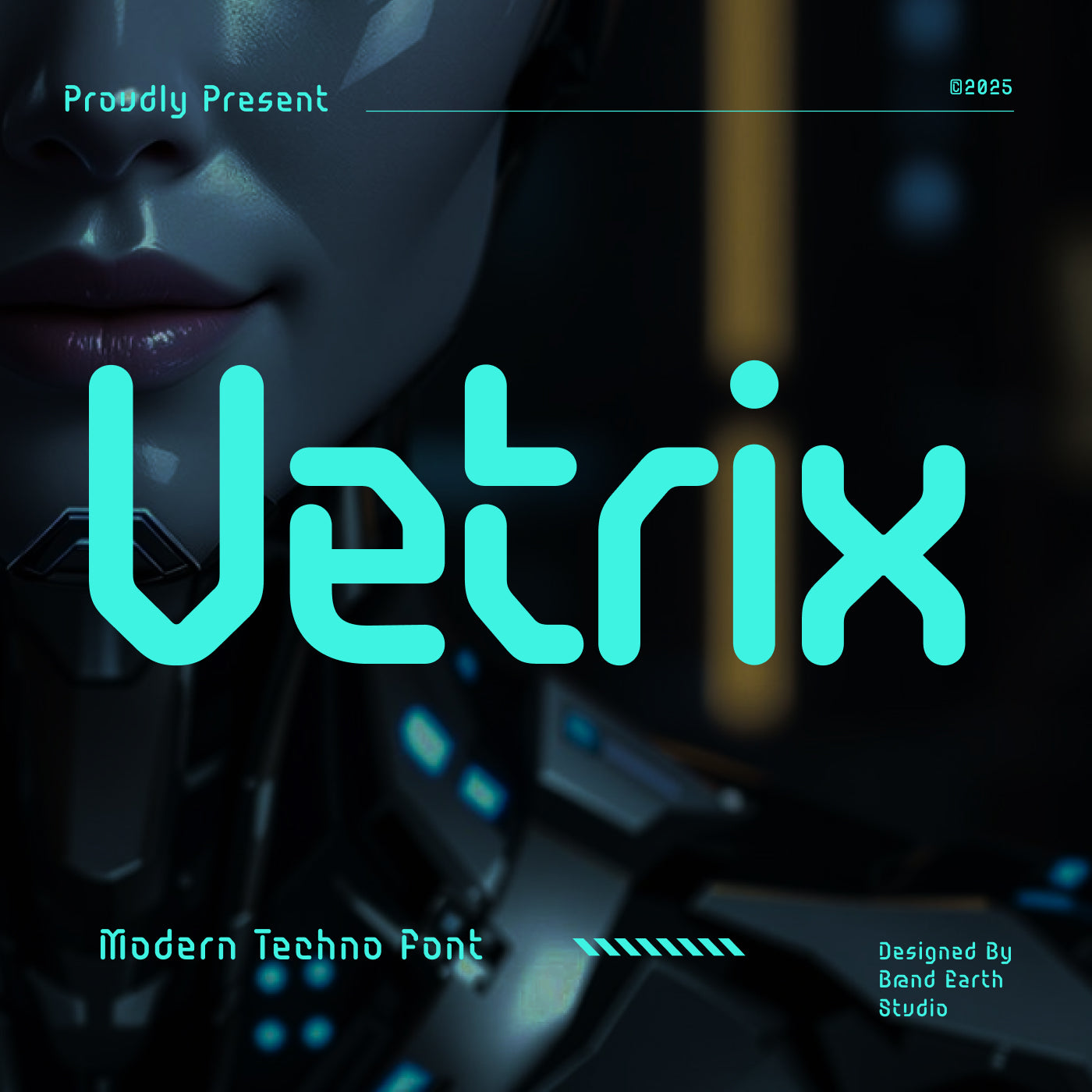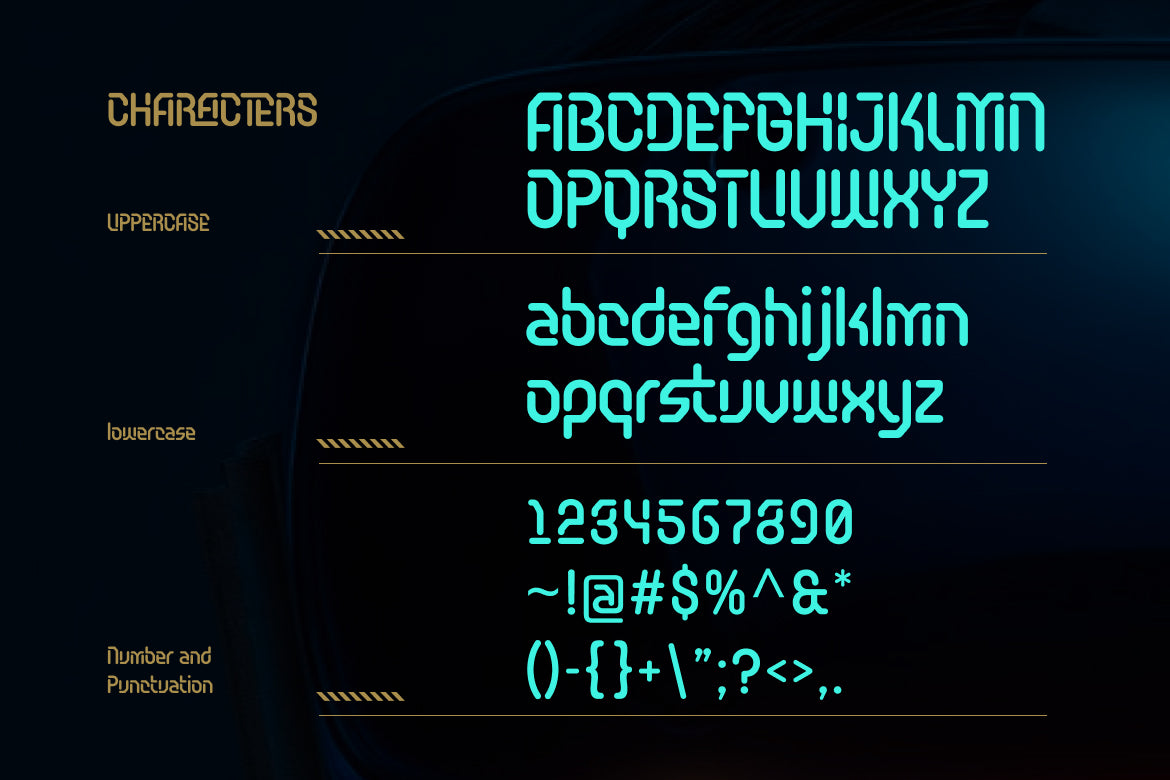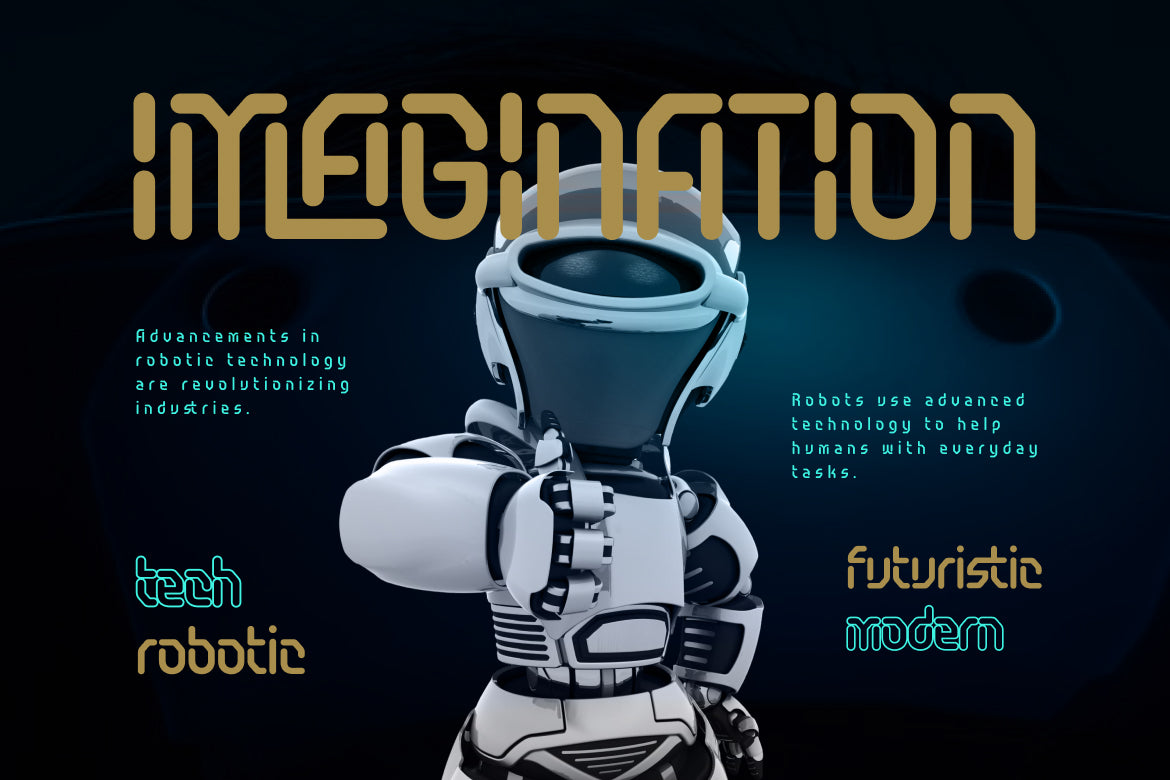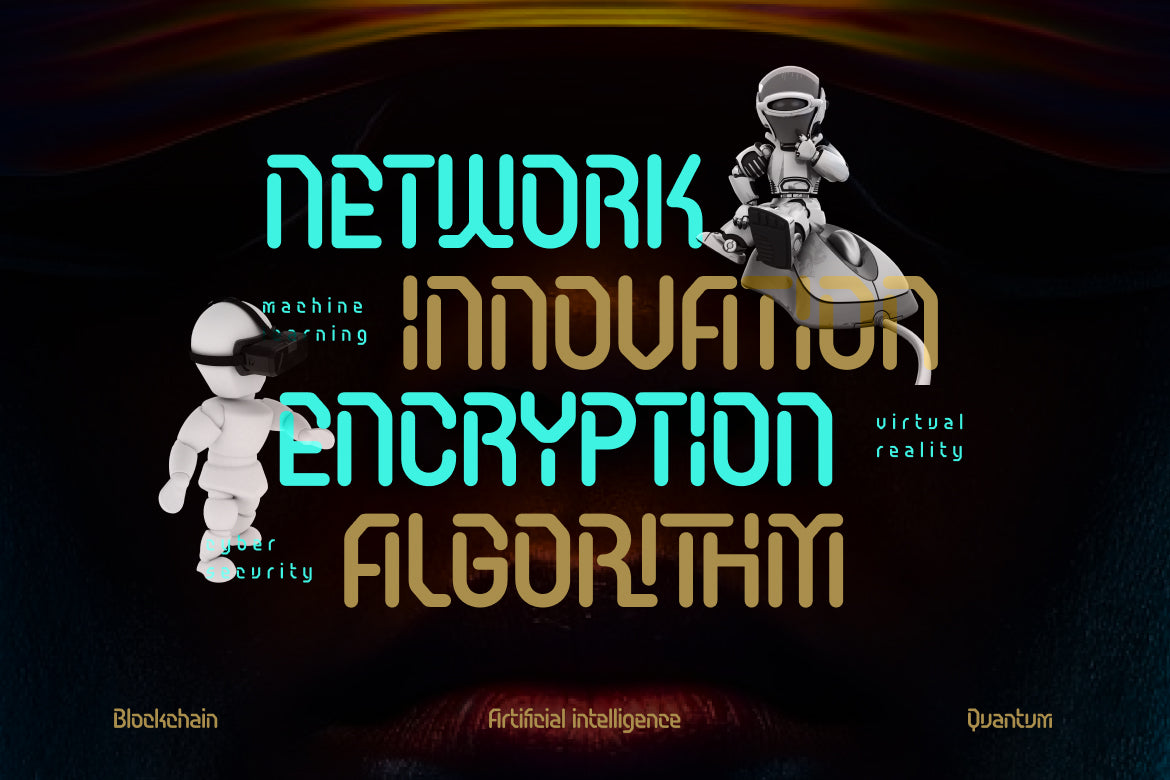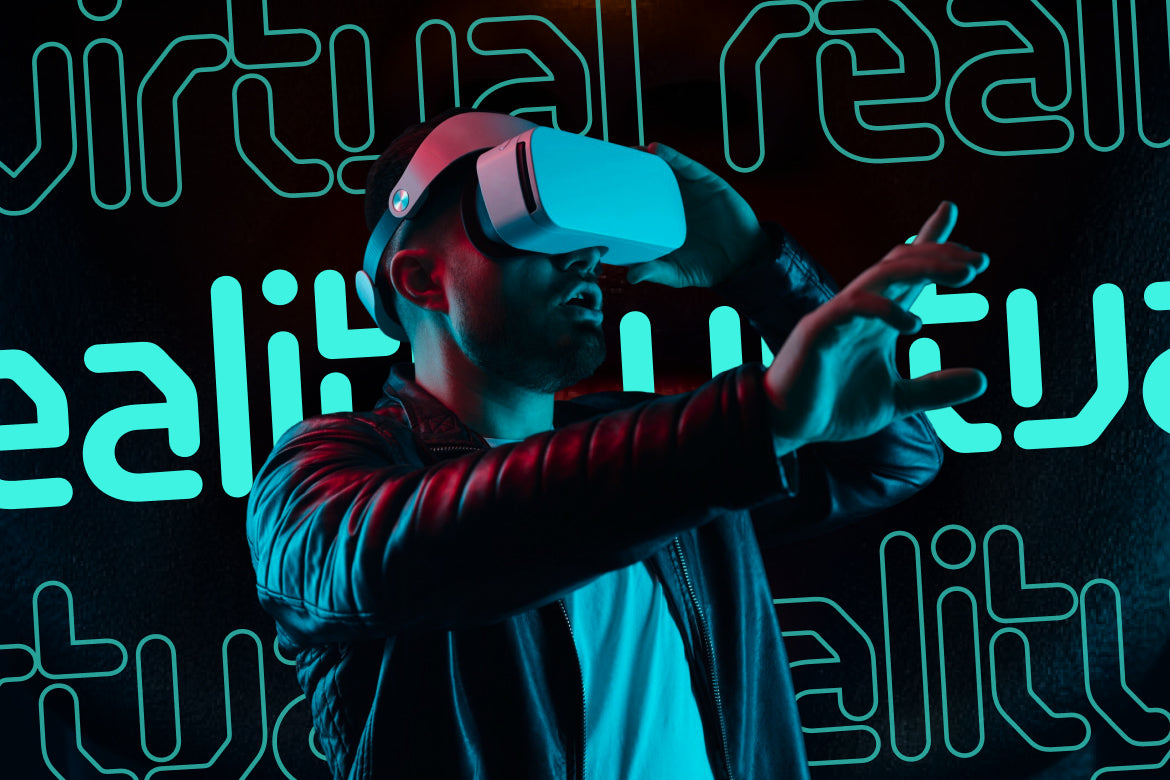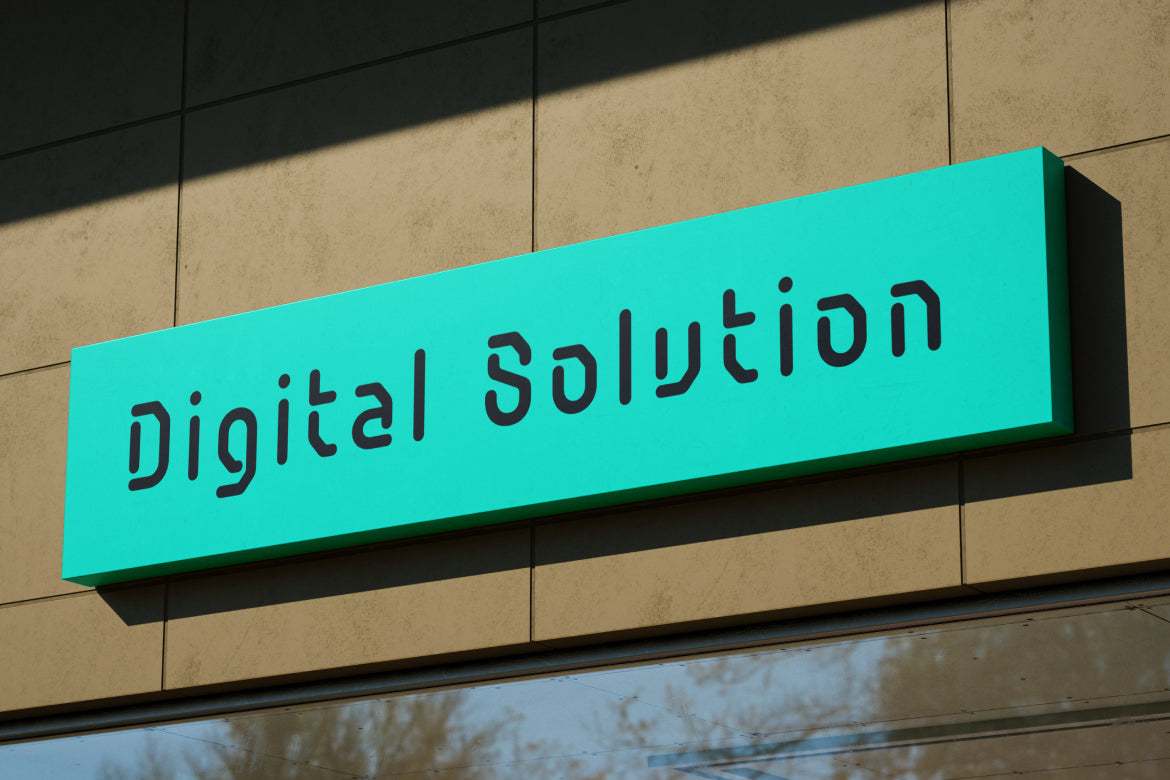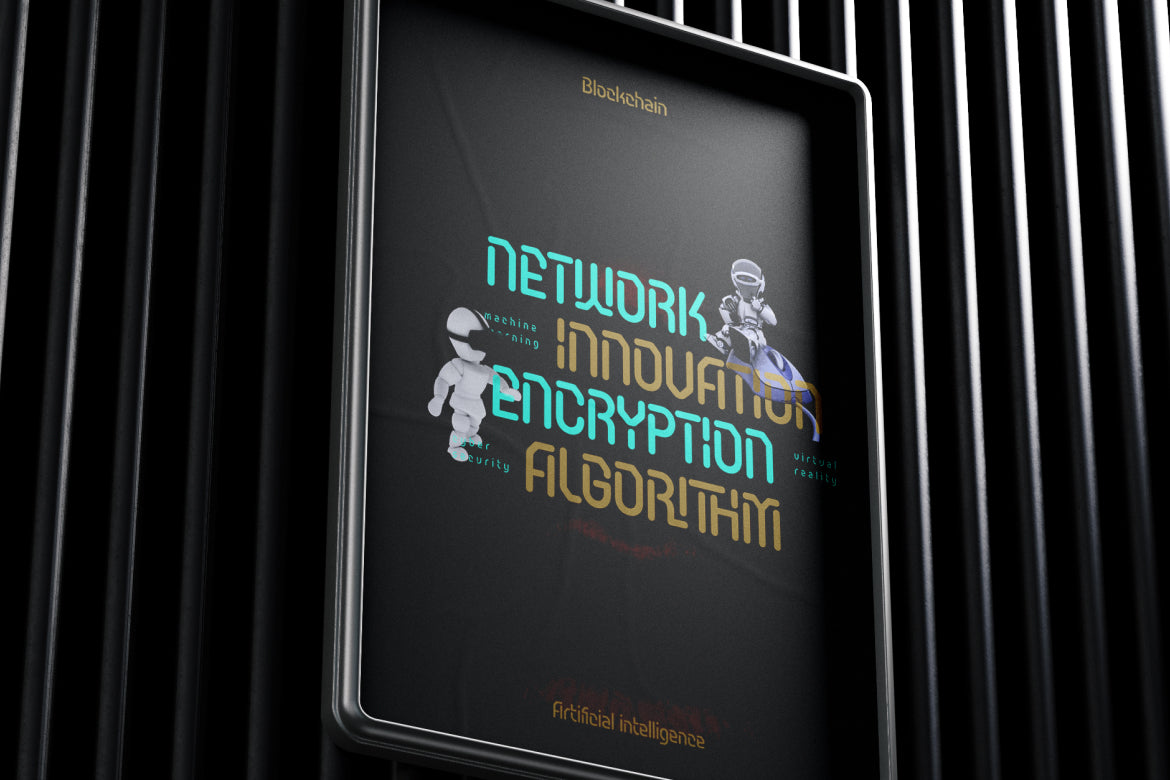
Vetrix Modern Techno Font
Vetrix is a bold and electrifying display typeface designed to inject your visuals with a surge of futuristic energy. This modern techno font merges digital precision with an edgy cyberpunk aesthetic, creating a visual language that speaks directly to innovation and the digital frontier. Its style is unapologetically tech-savvy and immersive, inspired by virtual reality interfaces, digital encryption aesthetics, and modern robotics. The font exudes a sleek and immersive vibe perfect for futuristic branding, sci-fi gaming, and modern tech-based designs.
Whether you're building a virtual empire, launching a tech brand, or creating an electrifying user interface, Vetrix delivers bold visual clarity with a futuristic edge that commands attention. Vetrix is tailored for use in high-impact scenarios such as game logos, YouTube thumbnails, tech startup branding, virtual reality campaigns, esports posters, and NFT projects. It also performs well in digital signage, sci-fi editorials, and blockchain presentations.
Vetrix is a bold display typeface with a cyberpunk-inspired, techno aesthetic, featuring uppercase and lowercase characters, numerals, and punctuation. It is available in TTF, OTF, and WOFF formats.